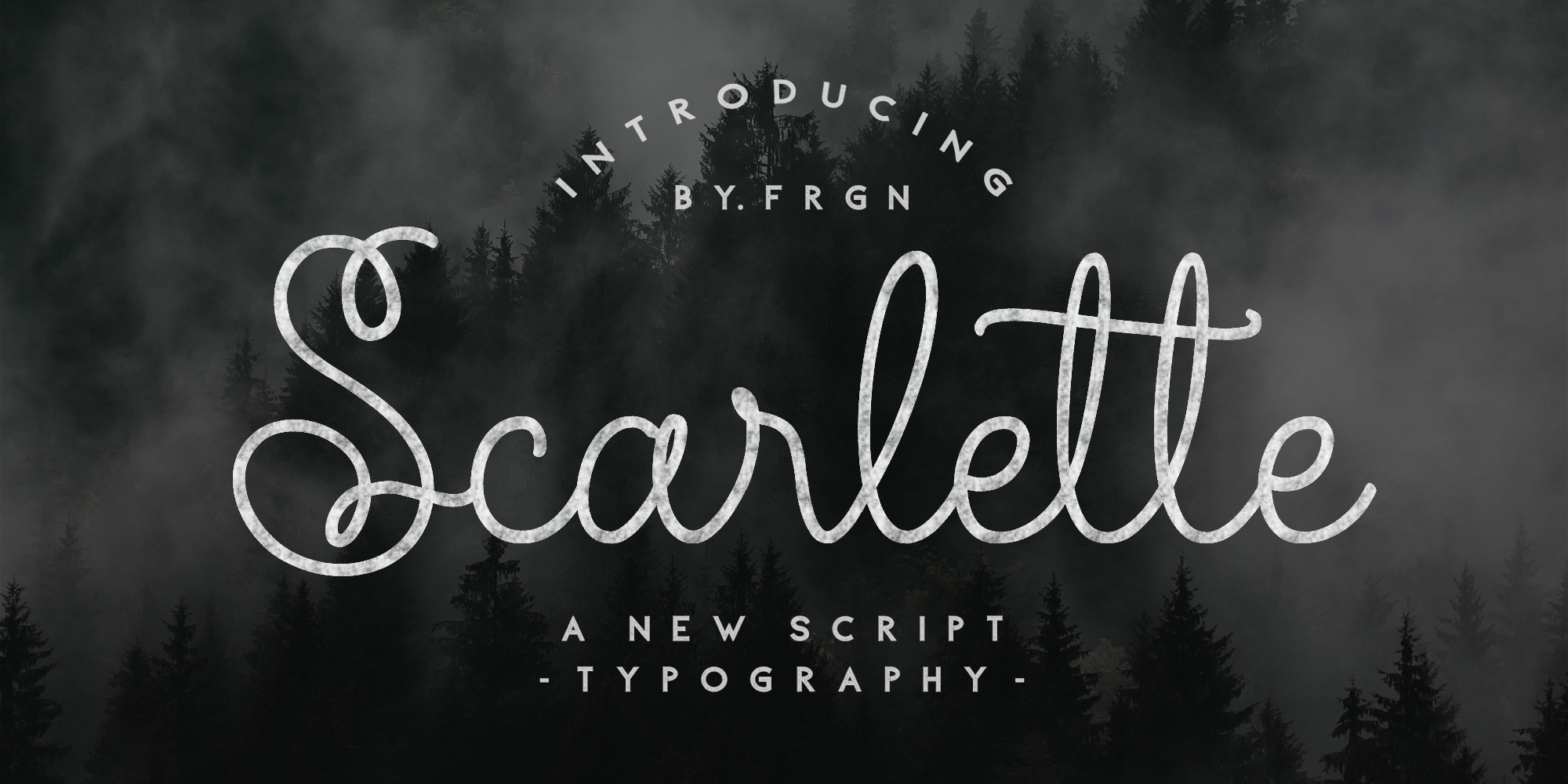
Scarlette Script Font is perfect for romantic wedding invitations, luxury beauty branding, elegant fashion labels, sophisticated perfume packaging, high-end jewelry designs, upscale boutique signage, passionate love letters, and graceful designs that require feminine elegance and romantic sophistication.
This font is exciting because it embodies the timeless allure of feminine grace through its flowing script letterforms that dance with romantic passion and sophisticated charm. The elegant character design captures the essence of classic Hollywood glamour and romantic elegance, making it perfect for brands seeking to convey luxury, romance, and irresistible feminine appeal.
Scarlette Script Font belongs to the elegant script font family, featuring romantic styling and feminine elements that enhance its authenticity for luxury and romance-focused design applications.
Whether you're creating luxury beauty branding or romantic celebration graphics, Scarlette Script Font Free Download delivers exceptional elegance and romantic sophistication. This typeface represents the perfect balance between passionate expression and refined luxury, making it essential for designers working on projects that celebrate feminine beauty and romantic occasions. The font's graceful presence works magnificently in luxury communications, wedding materials, and beauty branding, providing optimal readability while maintaining its script character that transforms any design with romantic elegance and creates unforgettable sophisticated experiences across all media platforms and luxury romantic communications.